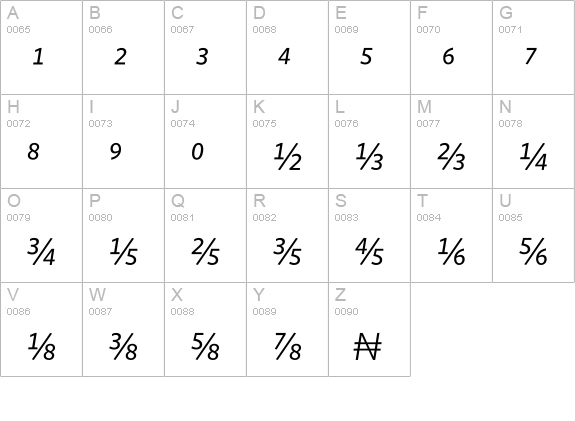
WhitneyNumeric-BookItalic is a beautifully designed font that exudes elegance and sophistication. Its slender and italicized letterforms add a touch of grace to any project, making it perfect for conveying a sense of refinement and professionalism. This font is not only visually stunning, but it also offers excellent legibility, ensuring that your text is easily readable in any context. Whether you're designing a logo, creating a stylish poster, or crafting a sleek website, WhitneyNumeric-BookItalic will elevate your typography to new heights. One of the best things about WhitneyNumeric-BookItalic is that it is freely available to download at FontsMarket.com. This means that you can enhance your designs with this exceptional font without any cost. The versatility and beauty of WhitneyNumeric-BookItalic make it a must-have for designers, and now, you can enjoy its benefits without breaking the bank. So, why wait? Embrace the elegance and professionalism of WhitneyNumeric-BookItalic in your next design project. Download it for free at FontsMarket.com and witness the transformative power of this remarkable font.